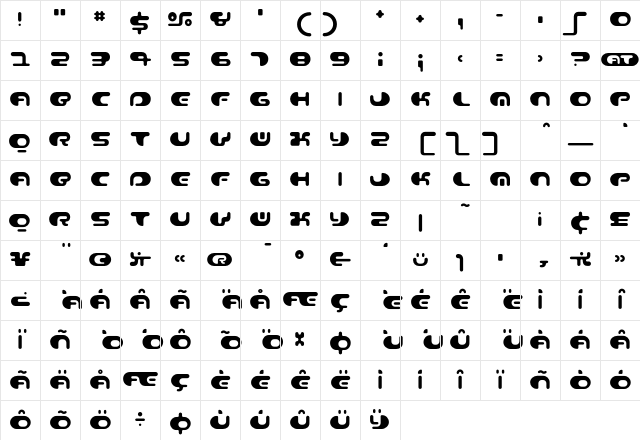
Contour Regular Free Font
Contour Regular
Design Context for Contour
Contour is a composed and adaptable typeface that performs quietly and consistently across a wide range of design contexts.